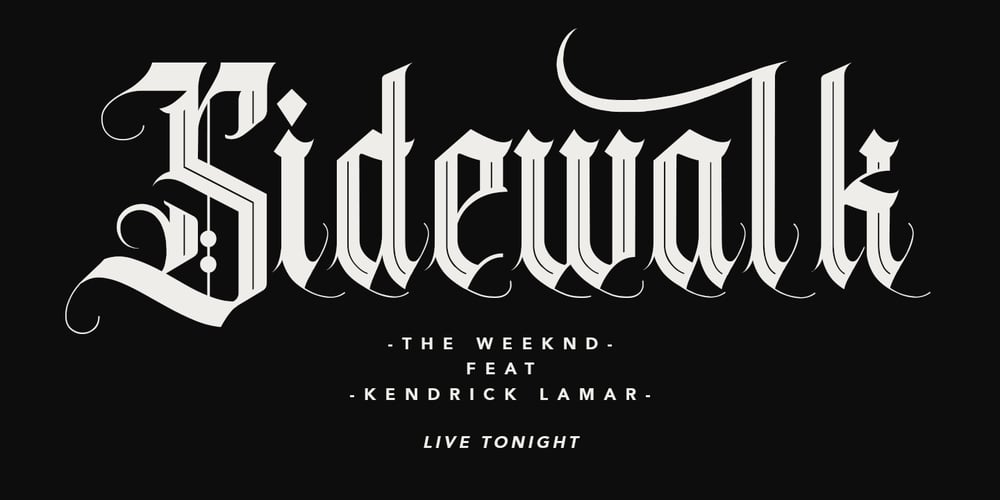
Clockwork
Clockwork font
Clockwork Font Family was designed by Gilang Maulana and published by Maulana Creative. Clockwork contains 1 styles and family package options. Introducing Clockwork Blackletter Vintage is a handmade Modern Victorian handlettering, which is combining modern and classic typography with some awesome alternates. Yes we back to early 1800s, bring classic touch on this decade.